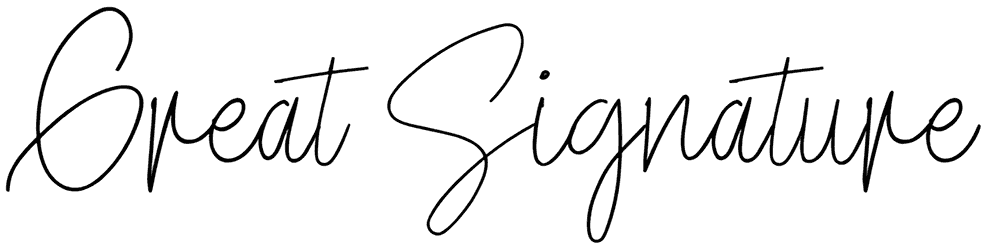
Great Signature Font
It doesn’t matter whether you want to design web page templates, wedding invitations, stationery, gift cards, or branding; a cursive script font such as Great Signature would look perfect on all of them. This handwritten font shares a feeling of softness, delicacy, or vitality with the audience and persuades them to follow your editorial projects.